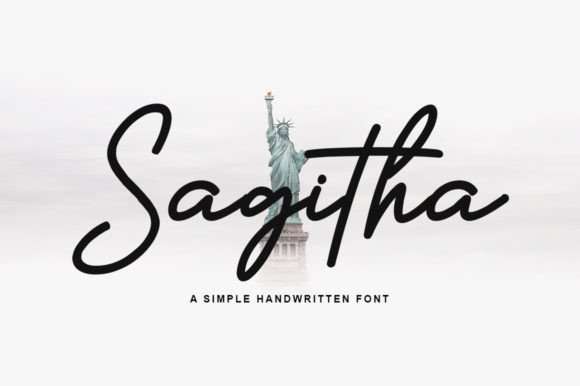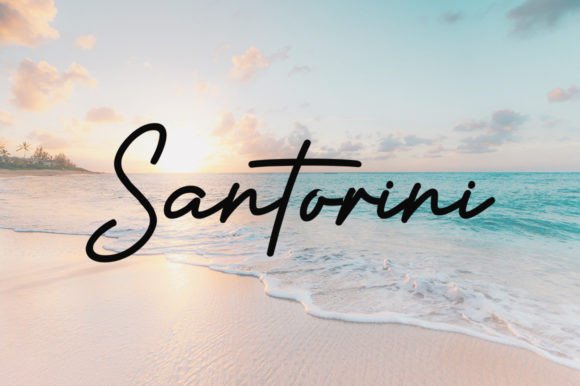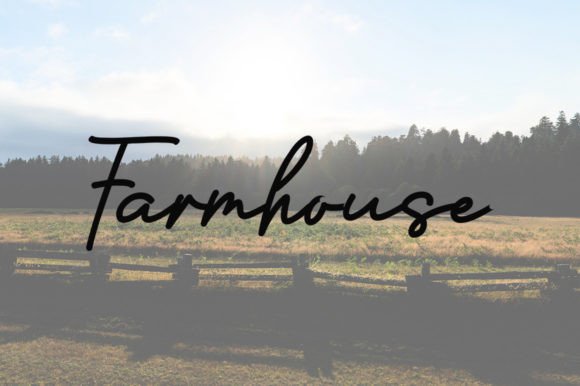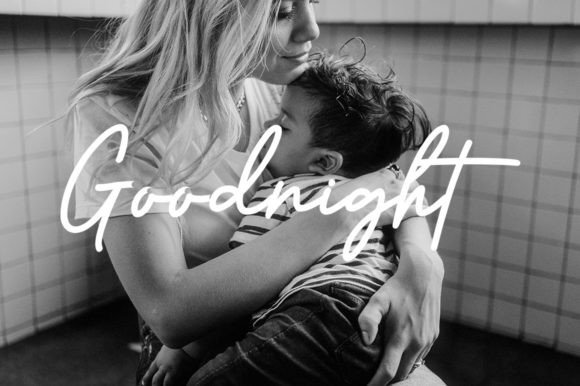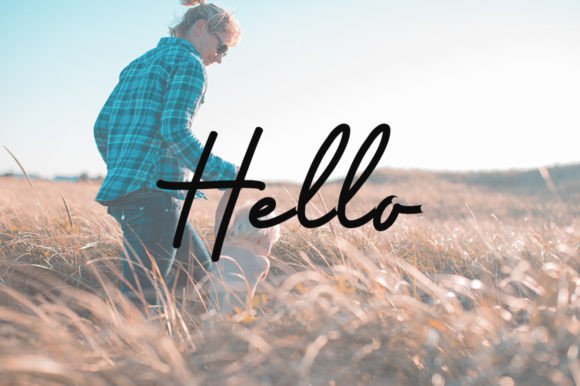
About Sagitha
Sagitha is a stylish and elegant calligraphy typeface with characters that dance along the baseline. It has a casual, yet elegant touch so it matches a wide range of designs.